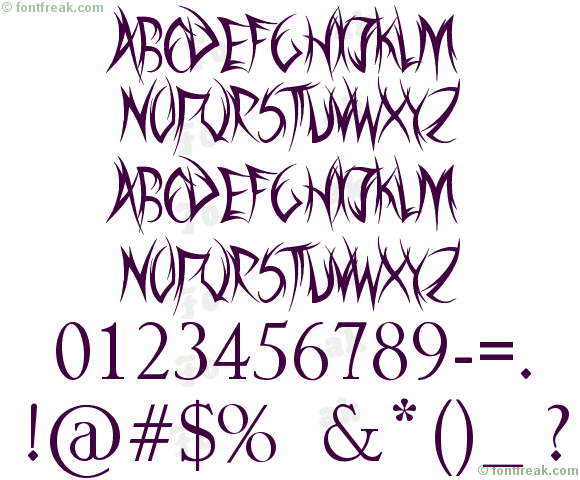
Sword Thrasher
Sword Thrasher, created by Jonathan S. Harris, is a striking decorative font that captures attention with its unique and edgy design. This font, categorized under decorative styles, features sharp, angular strokes that evoke a sense of boldness and excitement. The uneven stroke weight and deliberate contrast between thick and thin lines contribute to its dynamic appearance, making it perfect for projects that require a touch of drama. The spacing is intentionally varied, allowing each letter to stand out while maintaining an integrated flow.
This font is particularly well-suited for a range of creative applications. It can elevate the design of concert posters, infusing them with an energetic vibe that resonates with music lovers. Additionally, Sword Thrasher works beautifully for tattoo designs, appealing to a niche audience seeking striking imagery. Its unique aesthetic also makes it an excellent choice for merchandise branding, especially for businesses in the skate, surf, or alternative fashion industries. Small business owners looking to create distinct labels or packaging will find this font adds an unforgettable touch to their products. Content creators seeking to add flair to their social media graphics or website headers will also benefit from its bold and expressive character.
The target audience for Sword Thrasher includes graphic designers, tattoo artists, small business owners, and content creators who appreciate unique typography that stands out. This font stands out not only for its visual appeal but also for its versatility across various mediums. By offering a Sword Thrasher font free download, users can easily integrate this captivating typeface into their projects and unleash their creativity. Whether for personal or professional use, Sword Thrasher is sure to leave a lasting impression.